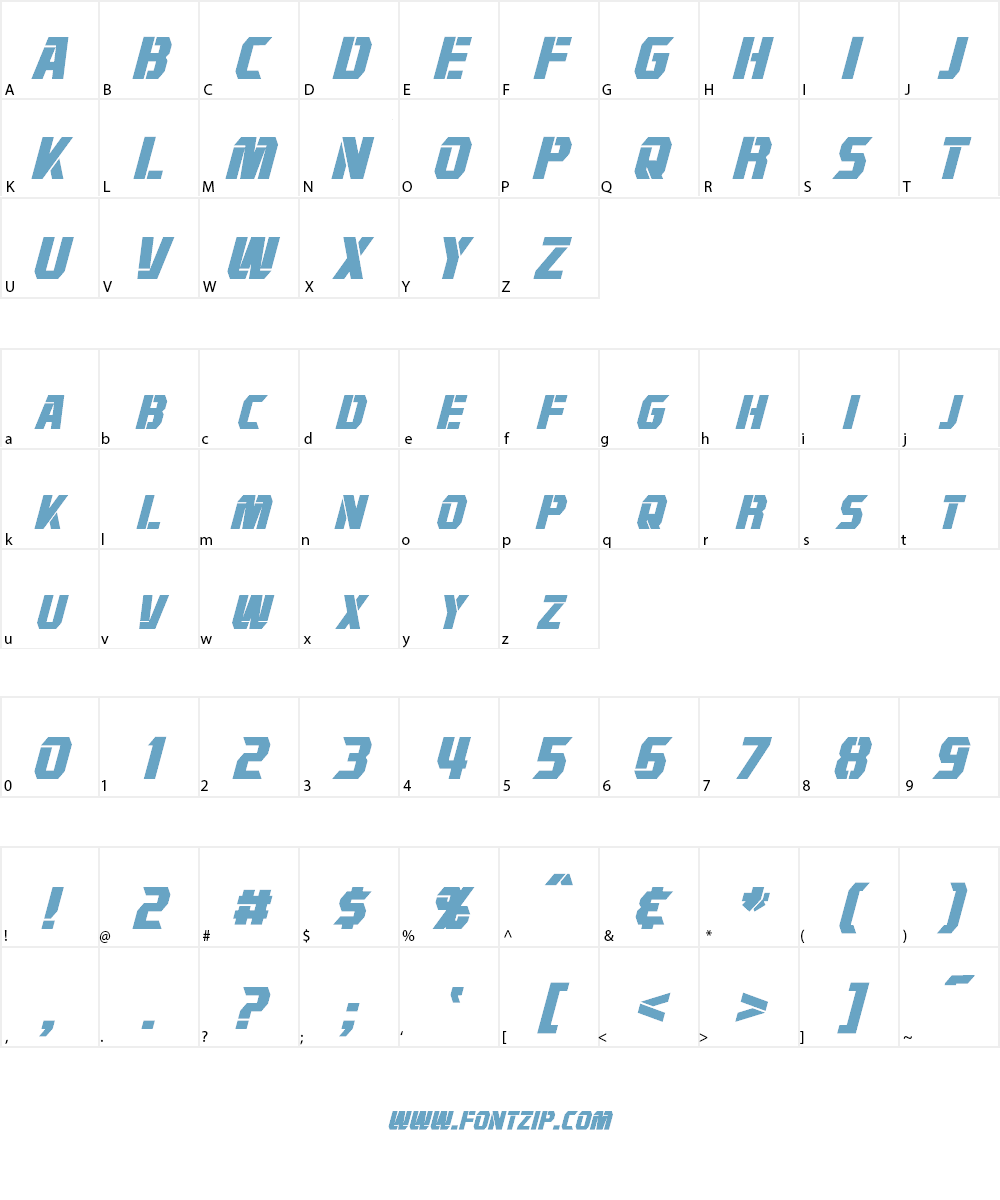
Combatron is a techno-centric, angular, stencil font influenced by Hasbro’s Transformers: Combiner Wars toy line. Includes full alphabet, extended character set, and Euro. Also includes bold, italic, and bold-italic weights.